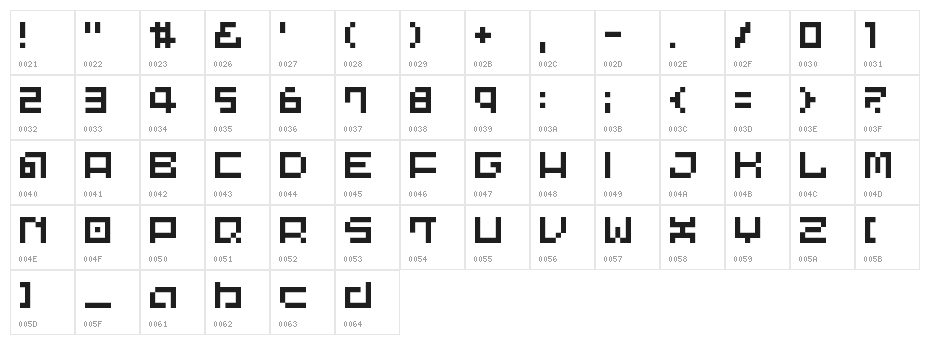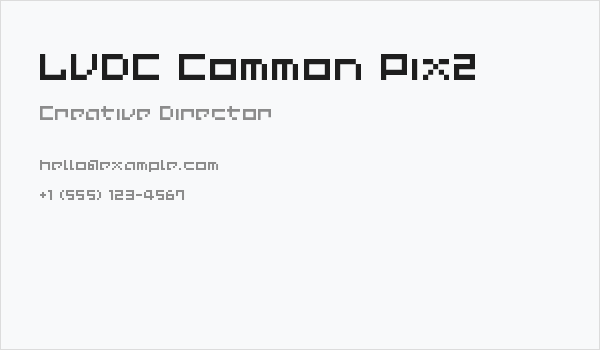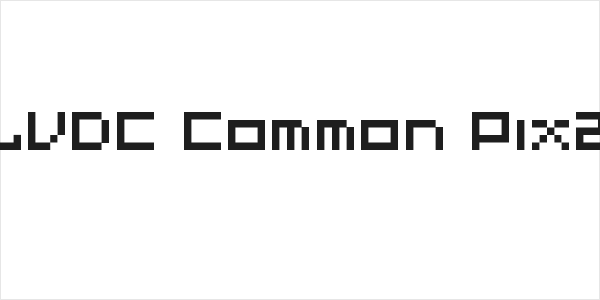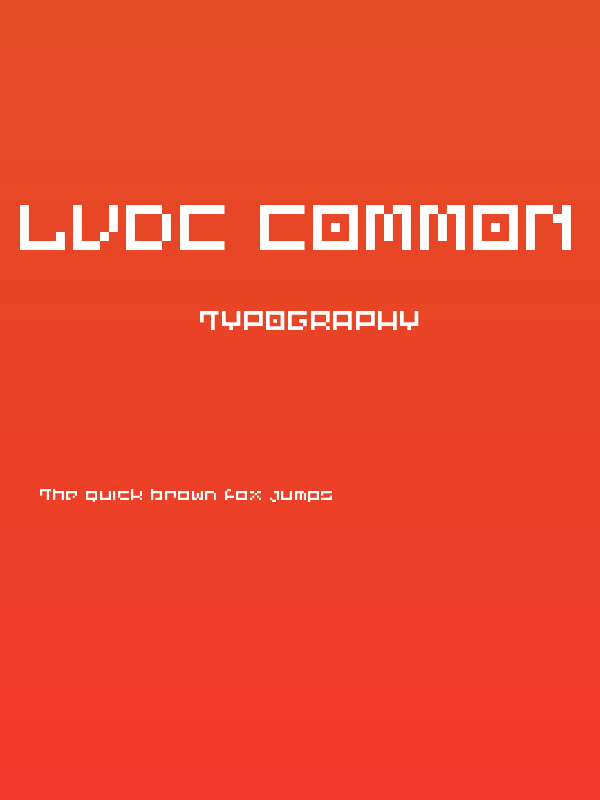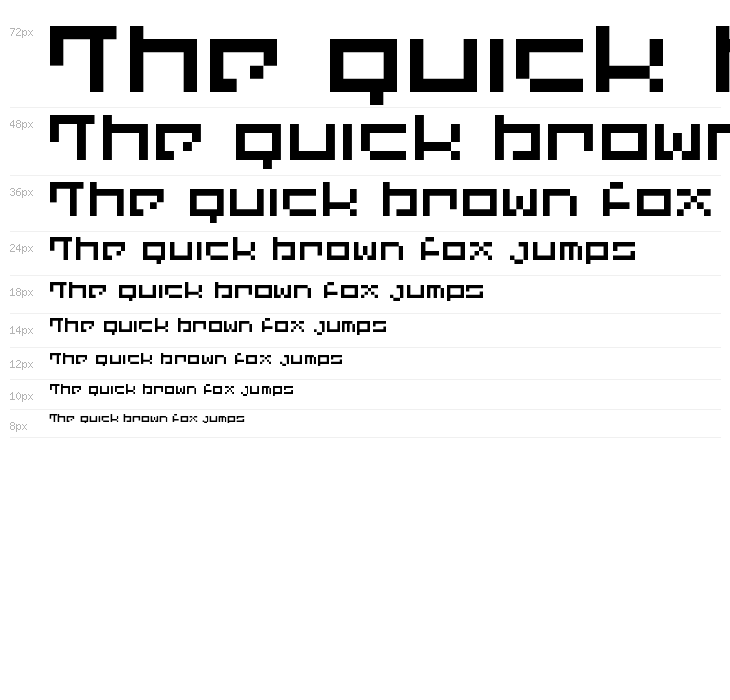
LVDC Common Pix2 Font
LVDC Common Pix2 Description
This font features a pixelated, blocky design reminiscent of early digital displays and retro video games. Each character is constructed with a grid-like precision, offering a uniform and consistent appearance across all letters and numbers. The uppercase and lowercase letters maintain a similar height, enhancing the font's geometric and modular aesthetic. The numerals and special characters follow the same pixelated style, ensuring a cohesive look. This design is ideal for projects that aim to evoke a sense of nostalgia or a digital, tech-inspired theme.
Overall StyleRetro, Digital
Use CaseHeadlines, Logos, Digital Art
Proposed ProjectsIdeal for video game design, tech-themed posters, retro digital interfaces, and pixel art projects.